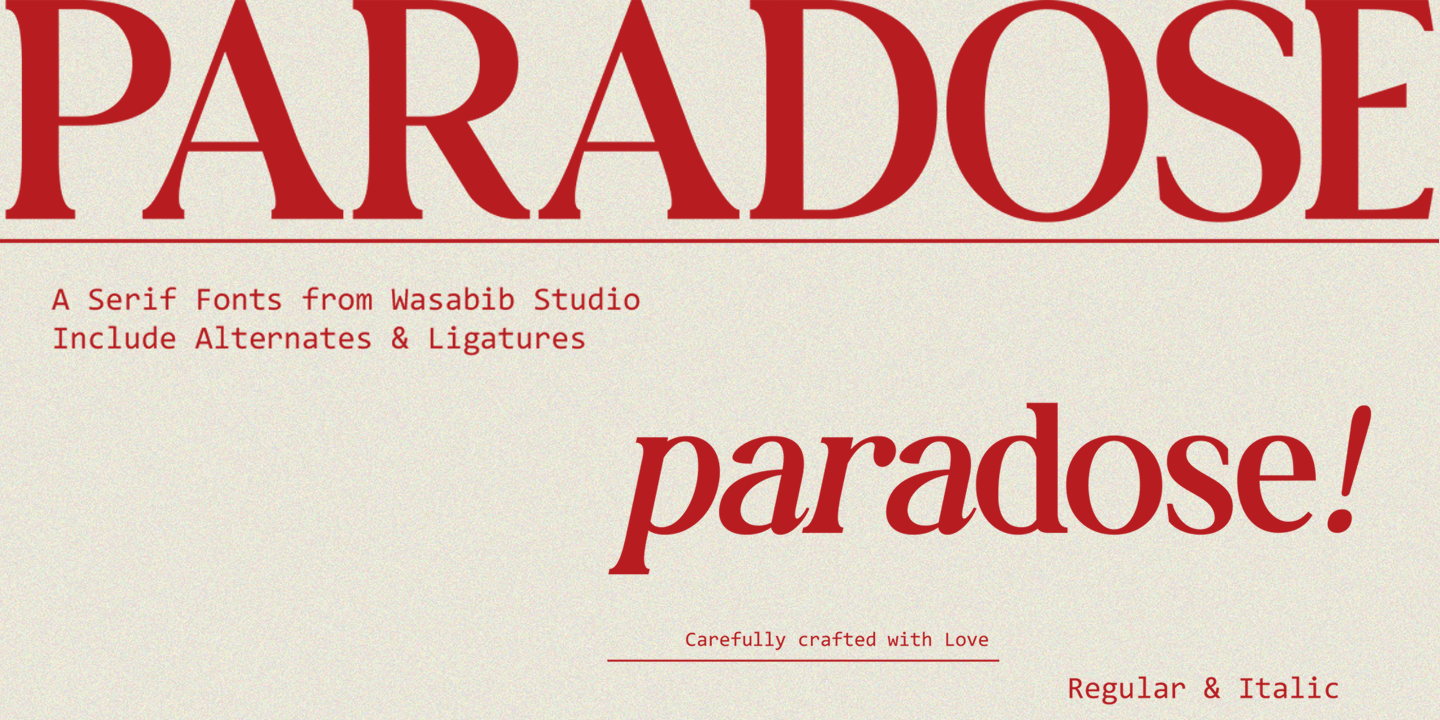
The Ws Paradose Font is perfectly suited for diverse creative applications including modern magazine layouts, contemporary art gallery branding, minimalist poster designs, fashion industry communications, architectural firm presentations, design studio portfolios, creative agency materials, tech startup branding, lifestyle blog headers, and innovative advertising campaigns. Its distinctive character makes it particularly effective for creative agencies, design studios, fashion brands, and contemporary businesses seeking to convey artistic sophistication, modern creativity, and cutting-edge design sensibility in their visual communications and brand presentations.
What makes the Ws Paradose Font extraordinarily exciting is its unique paradoxical blend of contrasting design elements that create unexpected visual harmony. This innovative typeface captures the essence of contemporary design contradiction while incorporating sophisticated typographic principles that ensure optimal performance across modern media platforms. The font's captivating character emerges from its bold geometric foundation, subtle organic curves, and carefully balanced proportions that create a sense of dynamic tension and creative innovation, making it perfect for brands seeking to establish distinctive identity and appeal to design-conscious, forward-thinking audiences.
The Ws Paradose Font family encompasses multiple weights and styles designed to accommodate various creative design requirements. The collection typically includes light, regular, medium, bold, and black weights, with many versions offering experimental italic variants that enhance the font's avant-garde appeal and artistic character. Some editions may include alternative letterforms, stylistic variations, and design elements that provide additional creative options for developing unique typographic treatments and innovative brand applications.
Creative professionals and contemporary designers consistently choose the Ws Paradose Font Free Download for its exceptional artistic impact and modern versatility. The font features carefully engineered spacing and kerning that maintains readability while preserving its distinctive creative character, ensuring effective communication across various artistic applications and contemporary design contexts. Its robust construction works well in both digital and print environments, while the comprehensive character set includes uppercase and lowercase letters, numerals, punctuation marks, and special symbols, along with extensive language support for international creative projects and global design communications.
The Ws Paradose Font represents the evolution of contemporary typography, combining artistic experimentation with professional functionality. Its paradoxical aesthetic challenges conventions while maintaining the sophistication required for serious creative applications. The font's remarkable adaptability allows it to work effectively in both minimalist artistic contexts and complex, multi-layered designs, ensuring consistent creative impact across portfolios, contemporary websites, artistic publications, and innovative marketing materials.
Embrace creative contradiction and artistic innovation with the distinctive character and contemporary sophistication of the Ws Paradose Font, the ultimate choice for avant-garde typography excellence.